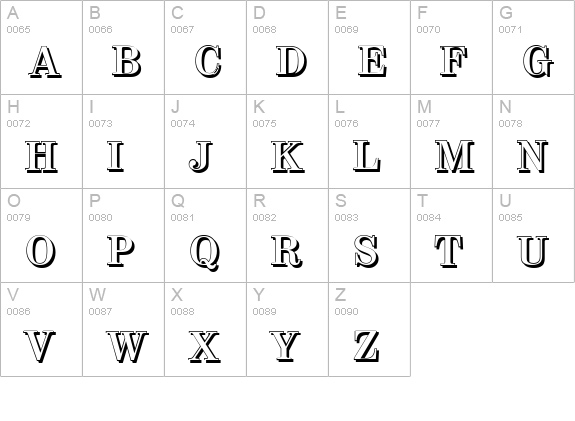
ValenciaShadow-Bold is a strong, high-contrast variant in the ValenciaShadow typeface family \xE2\x80\x94 well suited to headlines, attention-grabbing titles, and strong calls-to-action.
ValenciaShadow-Bold is a bold and stylish font that exudes elegance and modernity. With its sharp edges and unique shadow effect, this font is perfect for making a statement in your designs. Whether you're creating a logo, poster, or heading, ValenciaShadow-Bold will surely catch the eye of your audience. What's even better is that ValenciaShadow-Bold is available for free download at FontsMarket.com. This means you can easily add this stunning font to your collection without any cost. Don't miss out on the opportunity to elevate your designs with ValenciaShadow-Bold today!